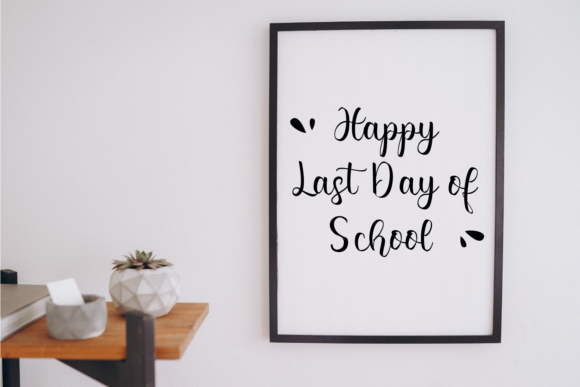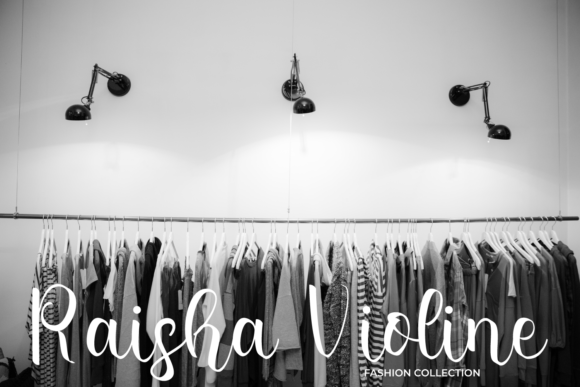
Introduction to Lestya Wonder Font
Lestya Wonder is a flowing and delicate handwritten font that embodies charm and elegance in every character.
Use it for projects that need lovely, romantic typography .